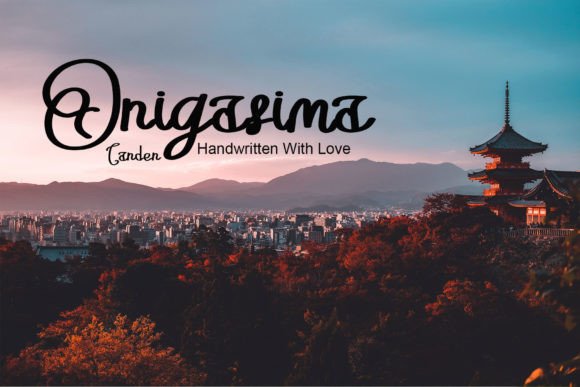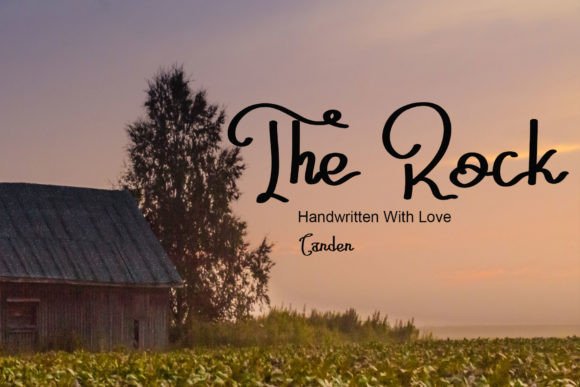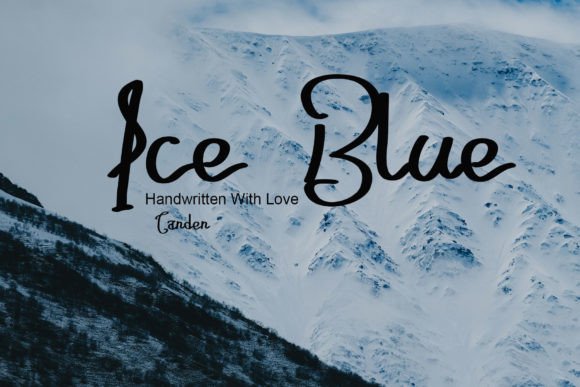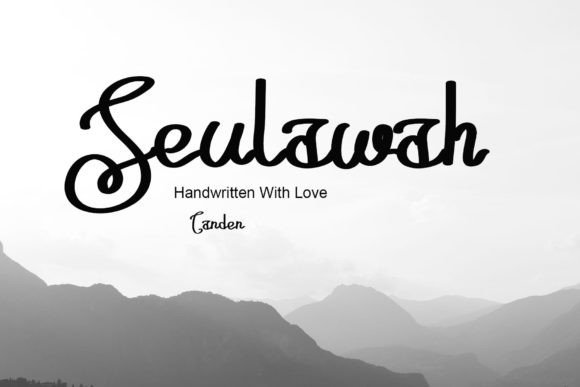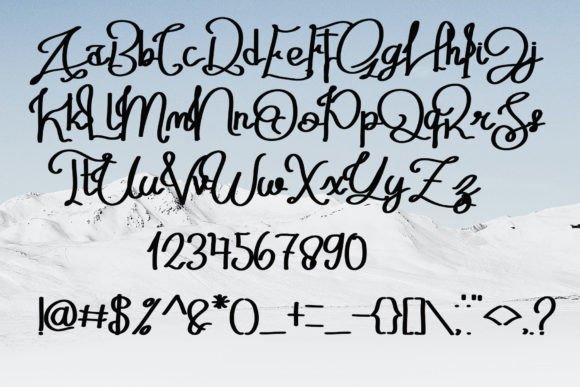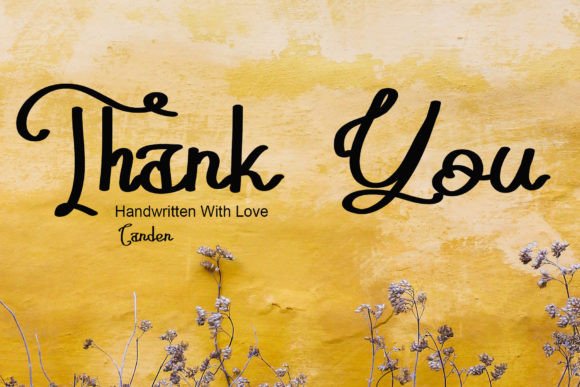
Gatta Dimuntaffa Font
About Gatta Dimuntaffa Font
Gatta Dimuntaffa is a unique handwritten font that was meticulously crafted by hand using a tablet. Its creation reflects a high level of care and attention to detail, resulting in a font that is both distinctive and versatile. Gatta Dimuntaffa’s simplicity is one of its standout features, yet it exudes a cool and stylish vibe that can enhance a variety of design projects.
Here are some key points to consider about Gatta Dimuntaffa:
1. **Handcrafted Authenticity:** The fact that Gatta Dimuntaffa was created by hand using a tablet adds a genuine and personal touch to the font. This authentic quality can resonate with audiences looking for a more organic and unique typeface.
2. **Versatility:** Gatta Dimuntaffa’s simplicity and clean lines make it a versatile choice for a wide range of design applications. It can be effectively used in website designs, wedding invitations, business cards, signatures, and advertisements. Its adaptability allows it to complement various design contexts.
3. **Modern Elegance:** While Gatta Dimuntaffa maintains a straightforward and uncomplicated appearance, it also exudes a sense of modern elegance. Its stylishness can lend a touch of sophistication to your projects, making it suitable for both personal and professional use.
4. **Readability:** Despite its handcrafted nature, Gatta Dimuntaffa maintains good readability. This is crucial for ensuring that your message or branding is effectively communicated to your audience without sacrificing the font’s unique aesthetic.
5. **Cool and Stylish:** The font’s cool and stylish look can help your designs stand out. It has a contemporary feel that can resonate with audiences seeking a fresh and trendy visual identity.
6. **Adaptability:** Gatta Dimuntaffa’s adaptability extends to various design themes and trends. Whether your project calls for a minimalist and modern design or a more vintage-inspired aesthetic, this font can complement your vision.
In conclusion, Gatta Dimuntaffa is a handcrafted handwritten font that combines authenticity, simplicity, and modern elegance. Its versatility and stylish appearance make it a valuable addition to your font library, suitable for a wide array of design projects. Whether you’re creating a personal website, crafting wedding invitations, or working on professional branding materials, Gatta Dimuntaffa can help you achieve a cool and stylish look while maintaining readability and authenticity.